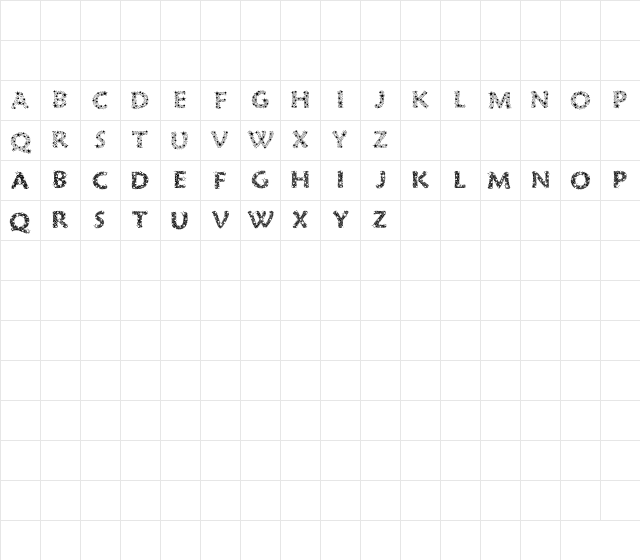
Razzle Dazzle Regular
Designer: High-Logic - Erwin Denissen 1999
Razzle Dazzle Family
Razzle Dazzle Regular
Design Context for Razzle Dazzle
Razzle Dazzle is a composed and adaptable typeface that performs quietly and consistently across a wide range of design contexts.